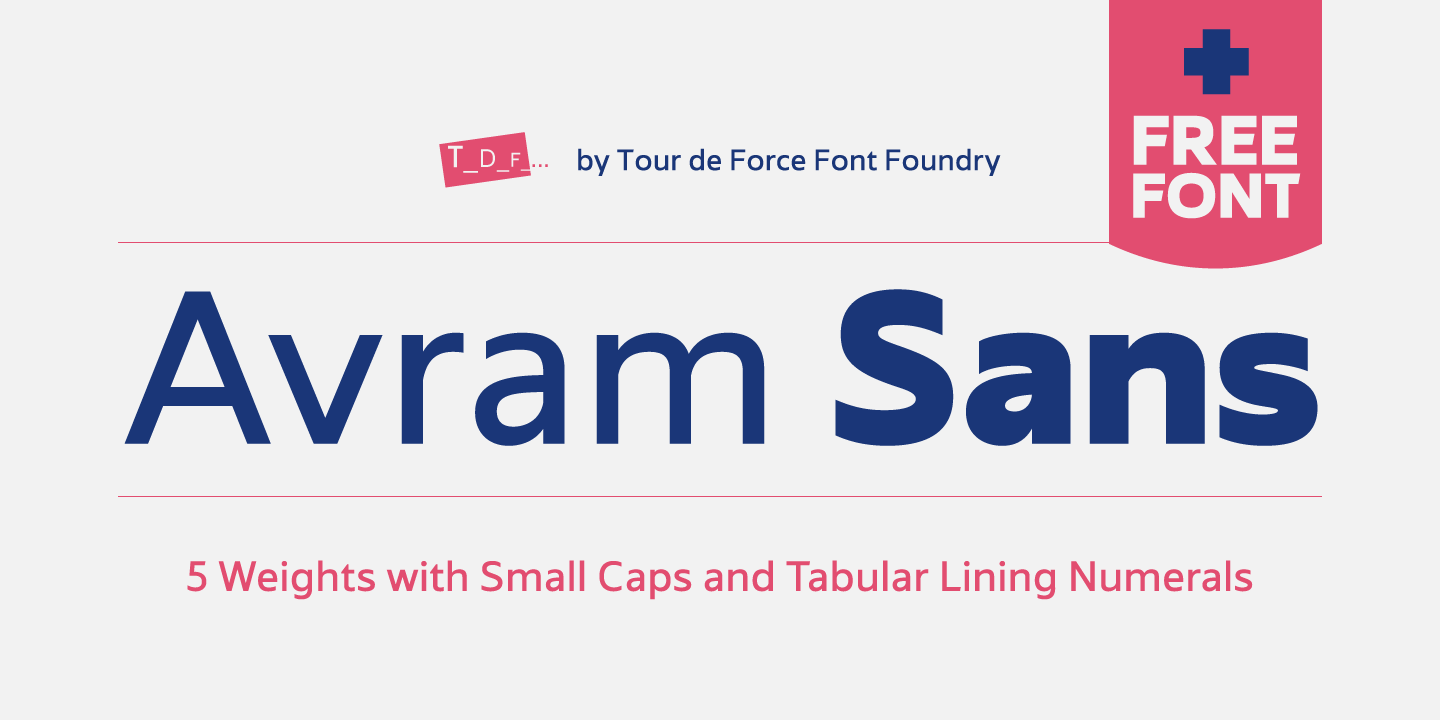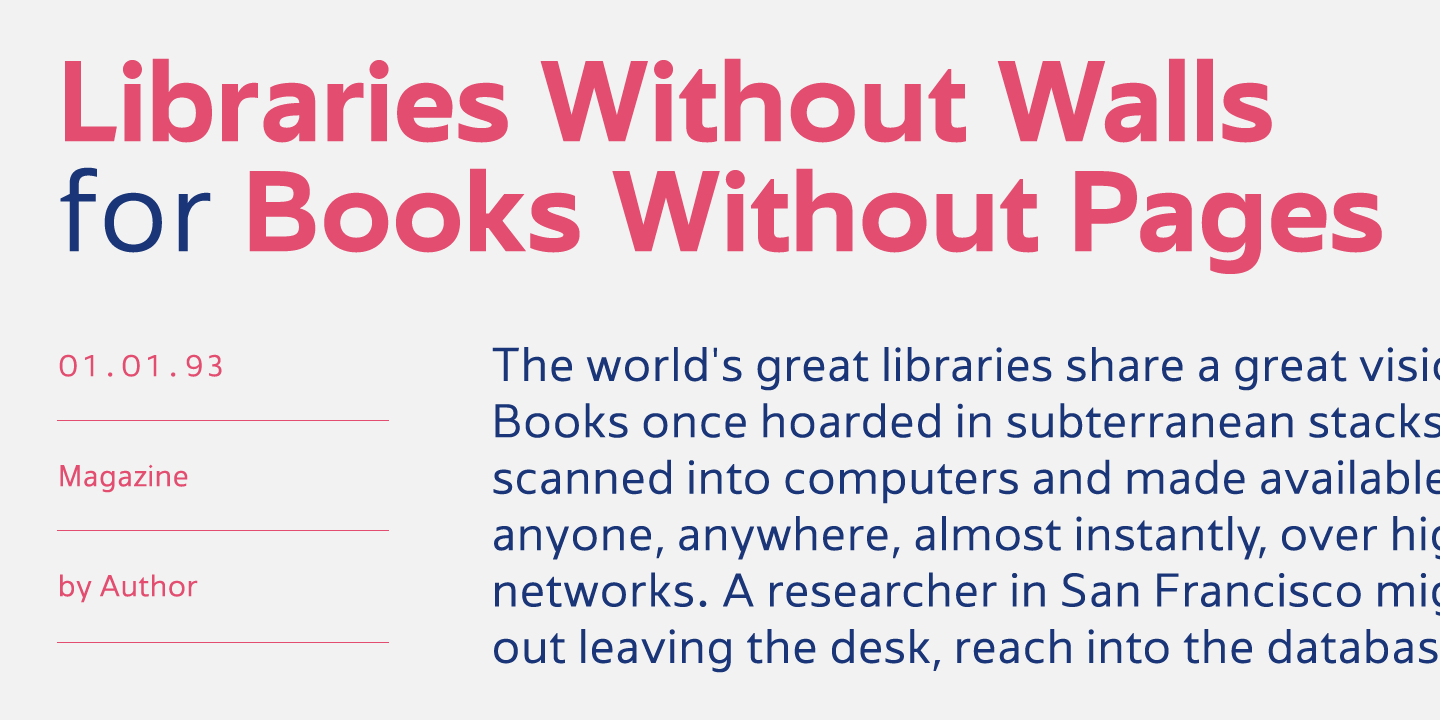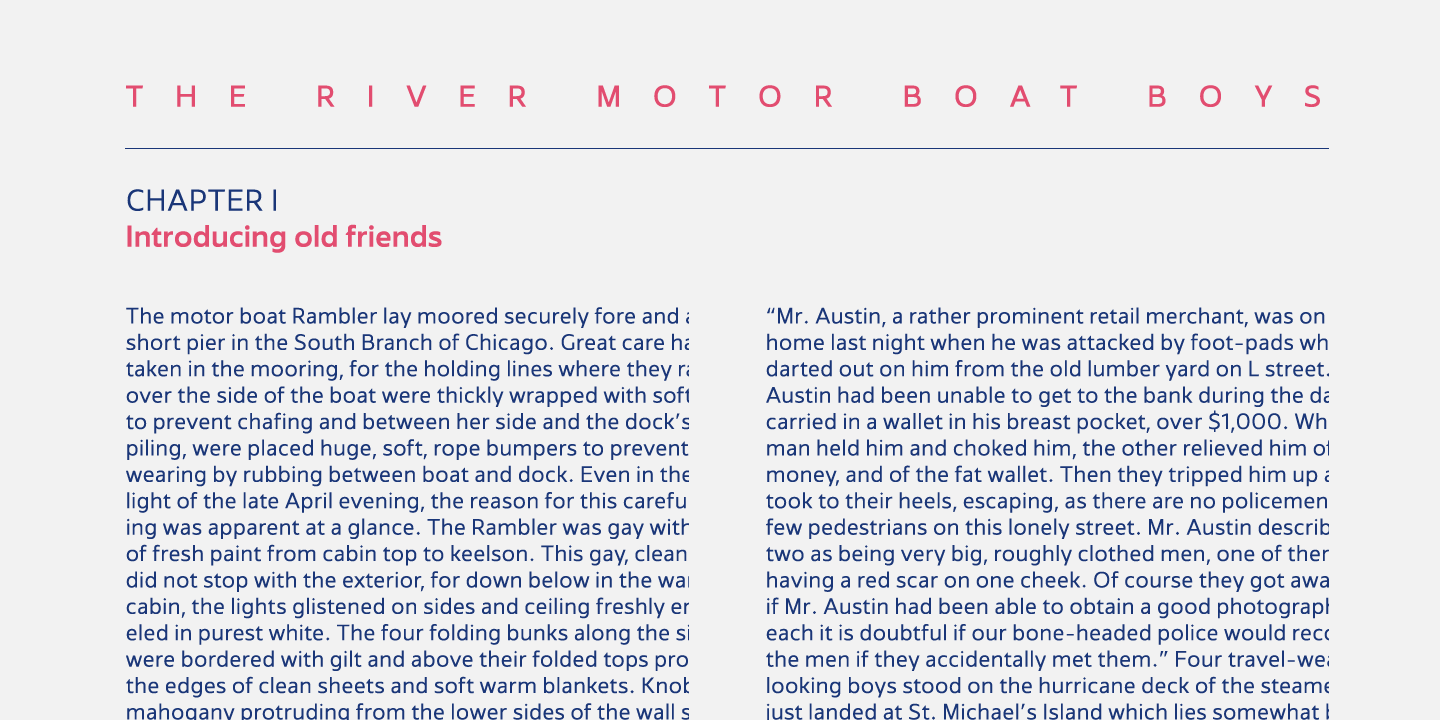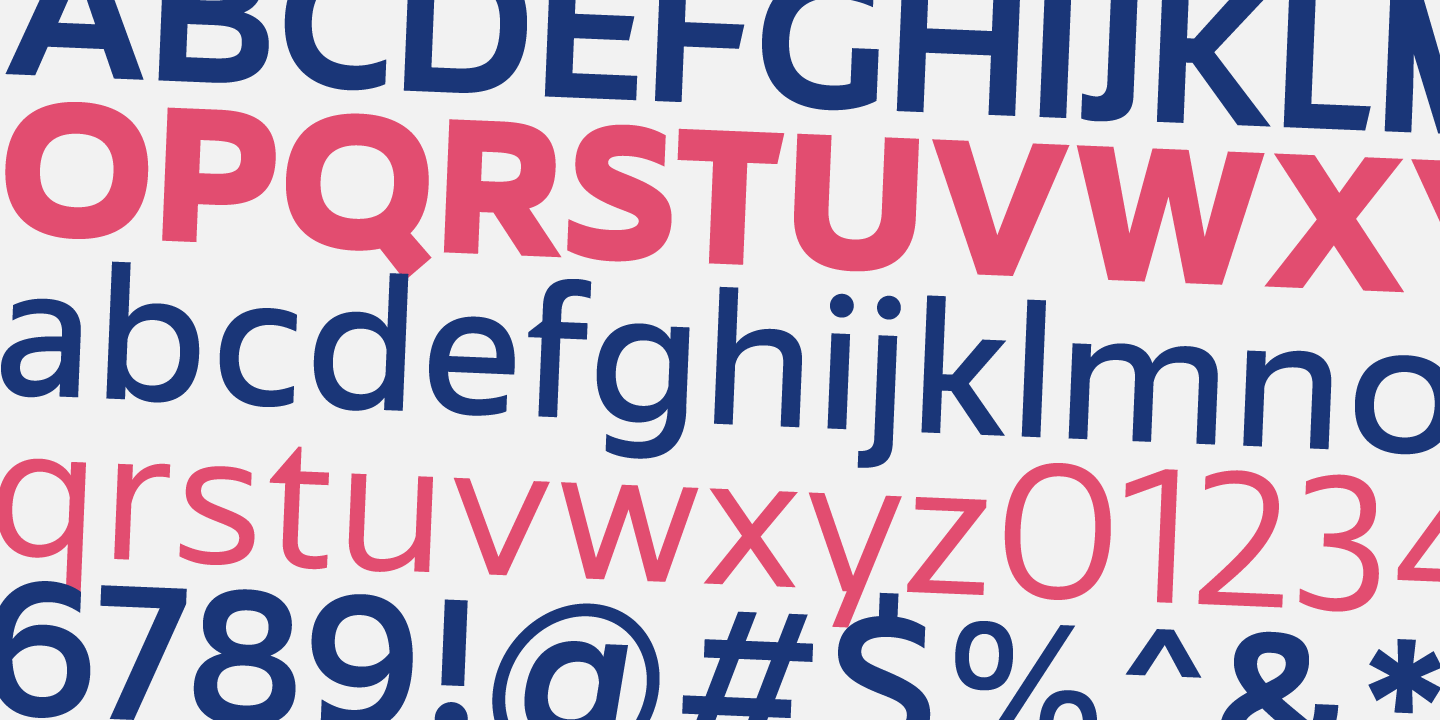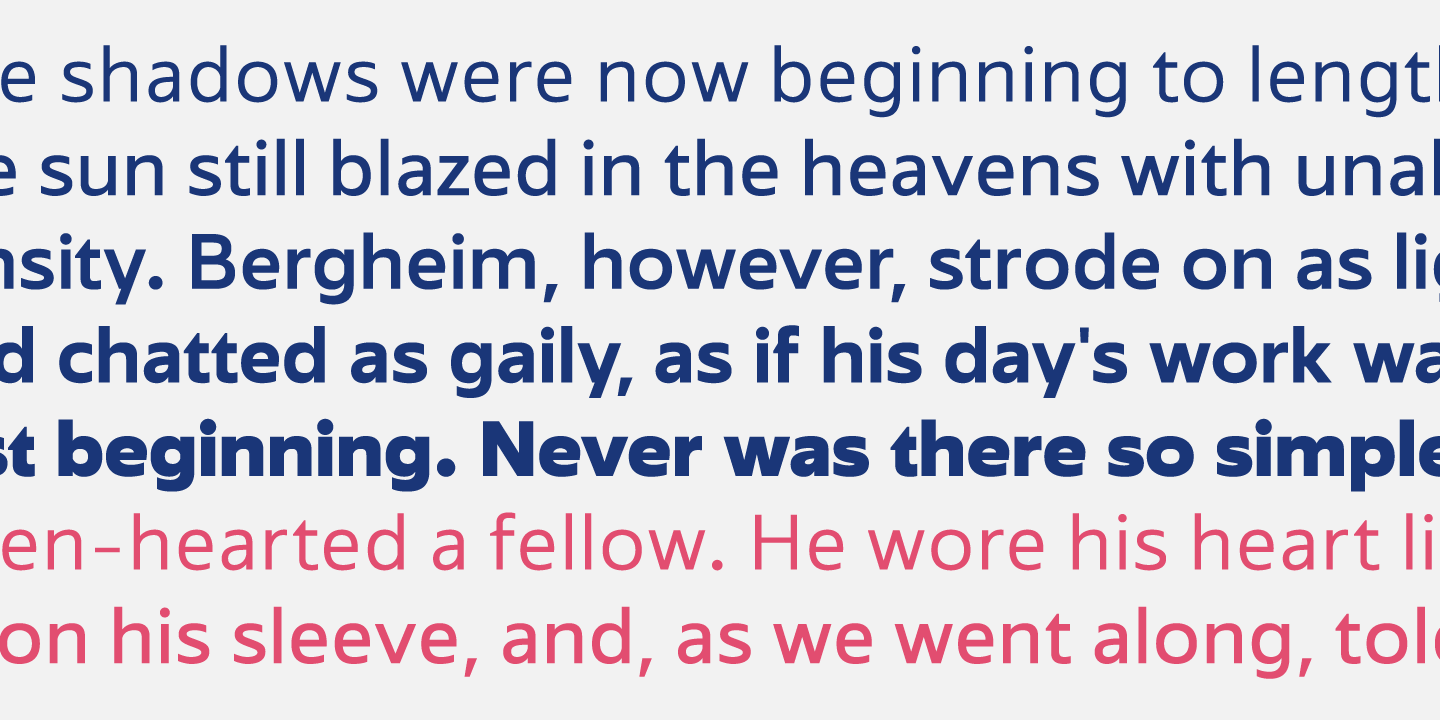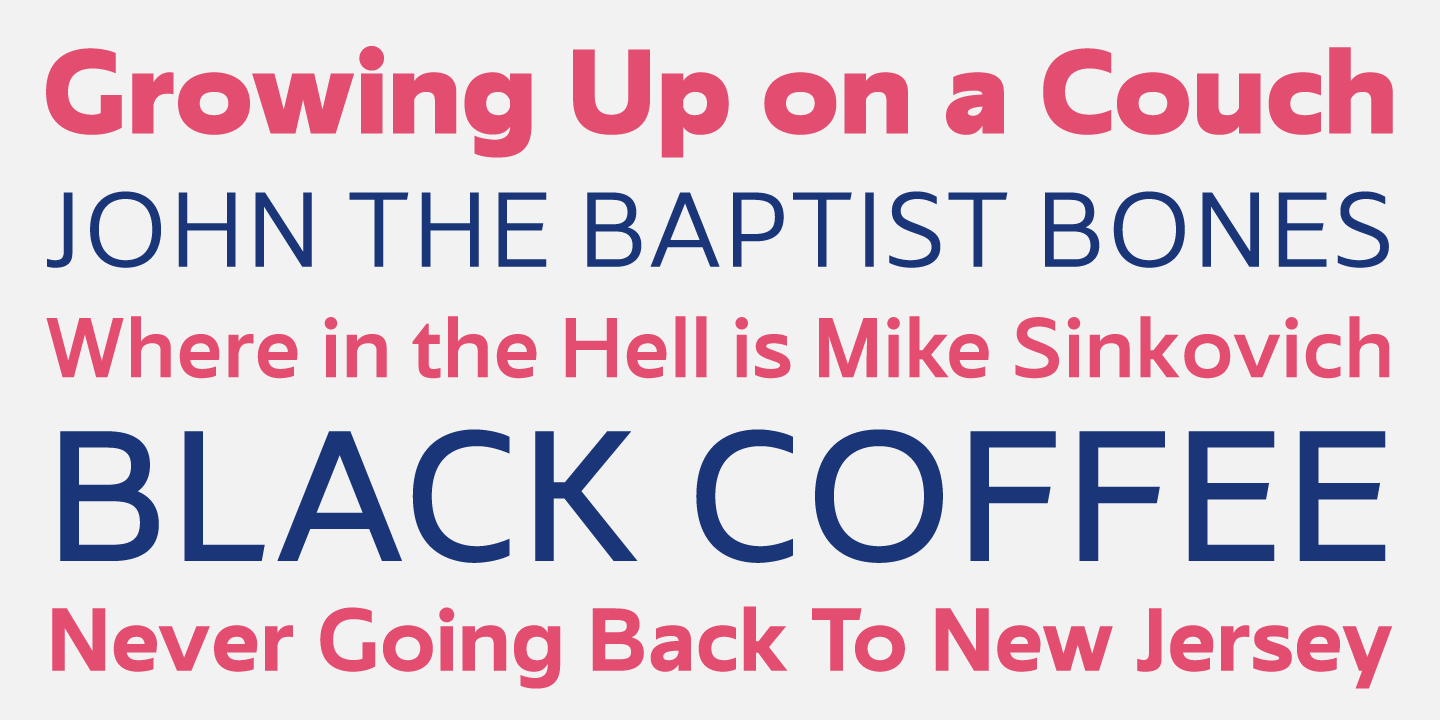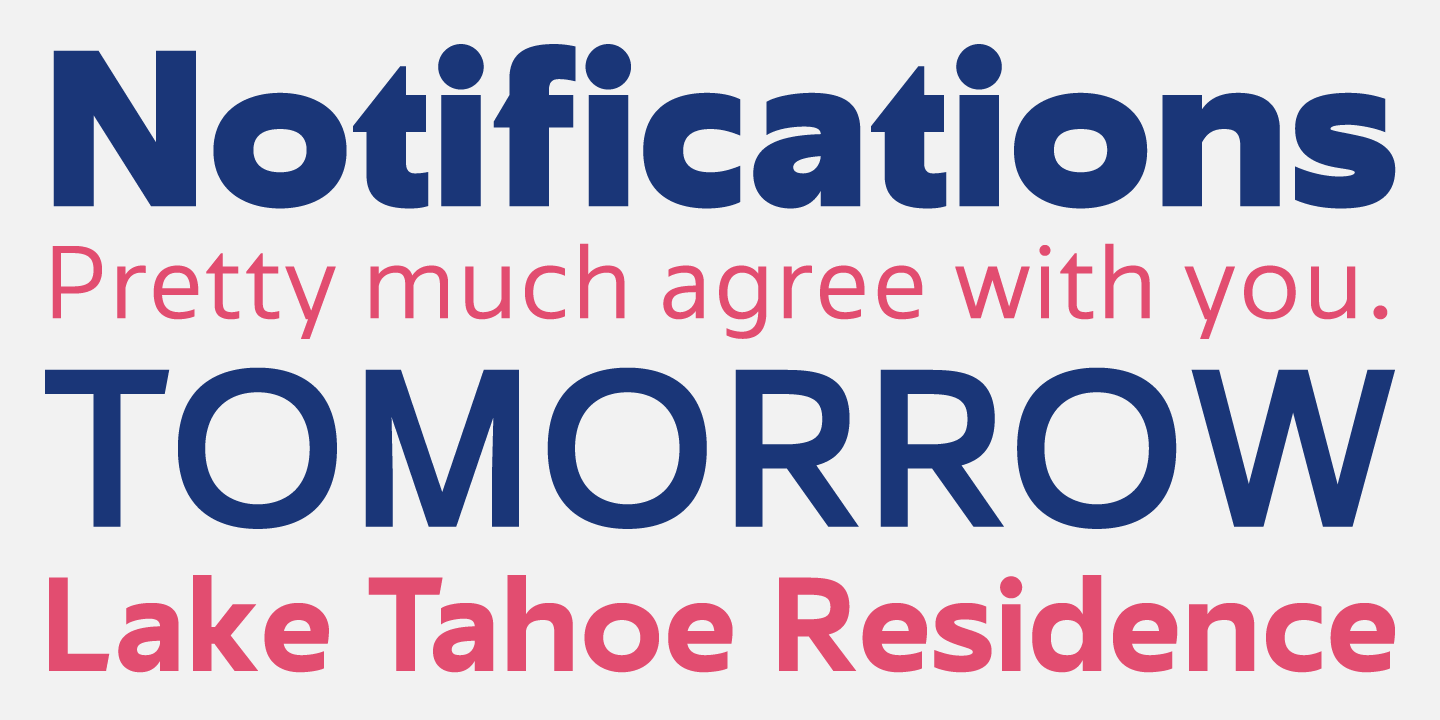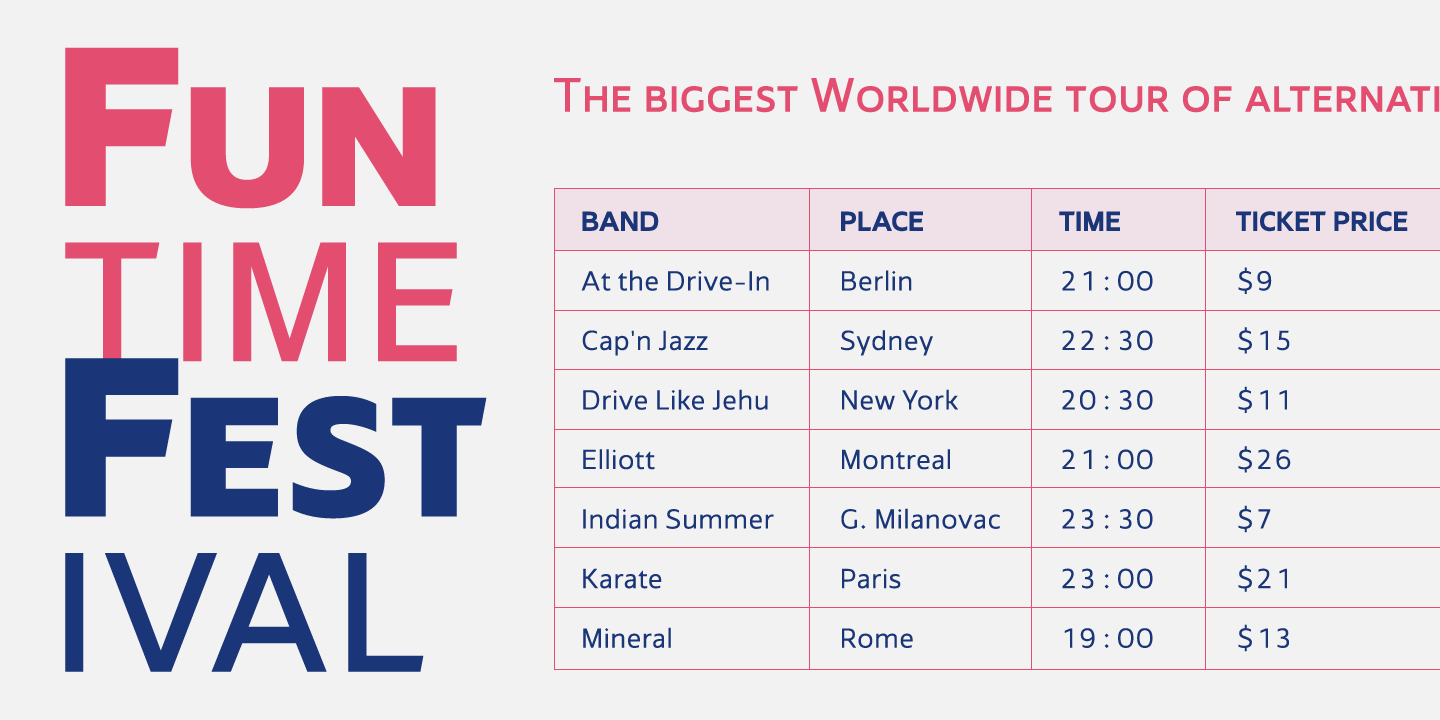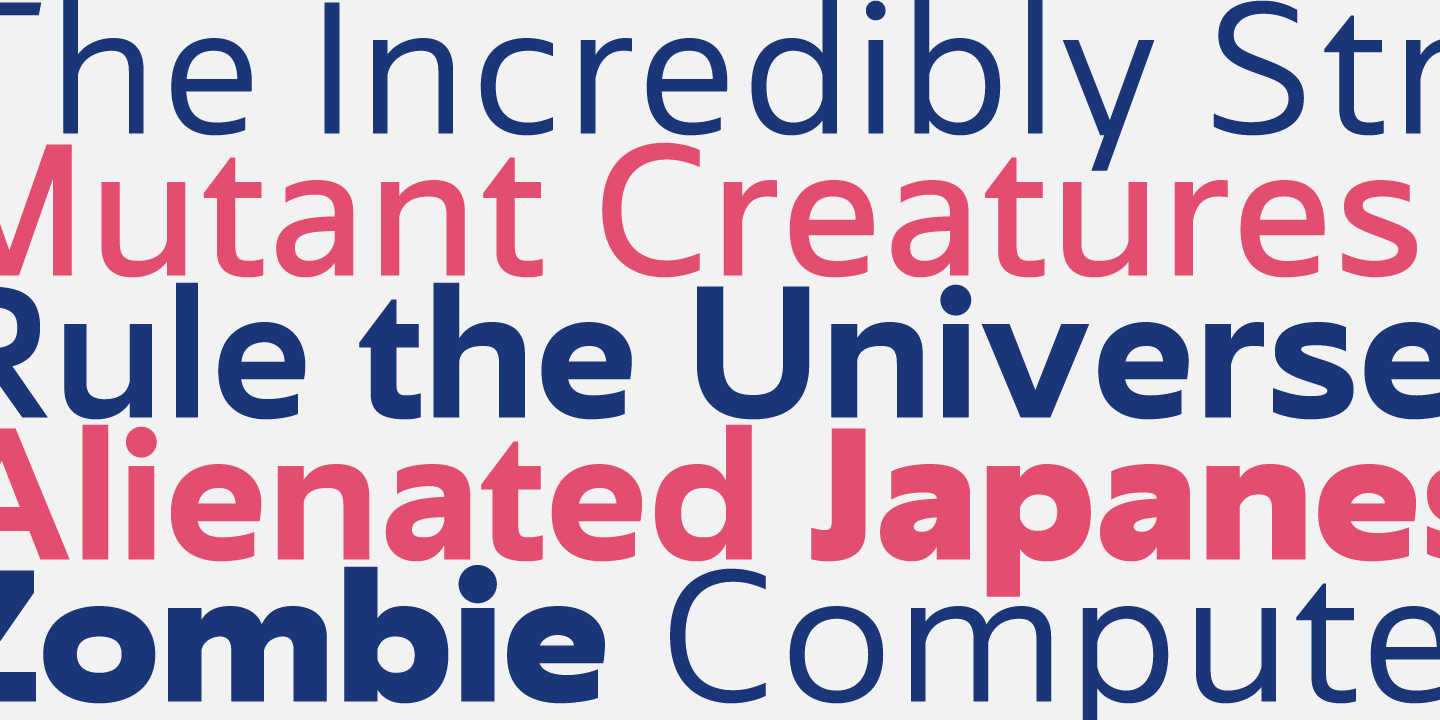
Avram Sans is modern, legible and universal sans serif family designed to accomplish best performances in very wide range of situations. By it's design, it flirts with traditional Geometrical and Humanist typefaces, but also contain contemporary characteristics that joined together results simple, elegant, unique sans serif family in 5 weights. Avram Sans performs well in very small sizes. Beside Tabular Lining Numerals, contains SmallCap letters for basic Latin characters. All together, Avram Sans comes with 425 glyphs, fully covering Latin written languages.
Standard Ligatures, Small Capitals, Tabular Figures
Dušan Jelesijević